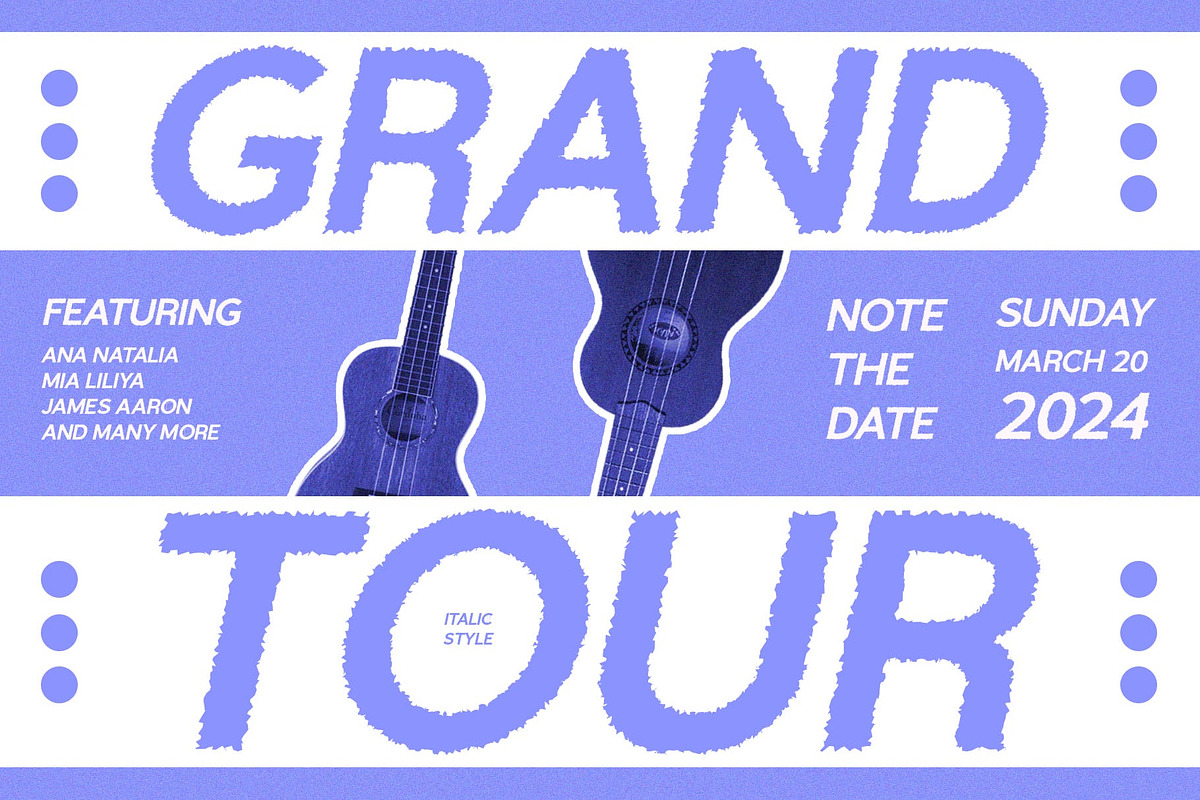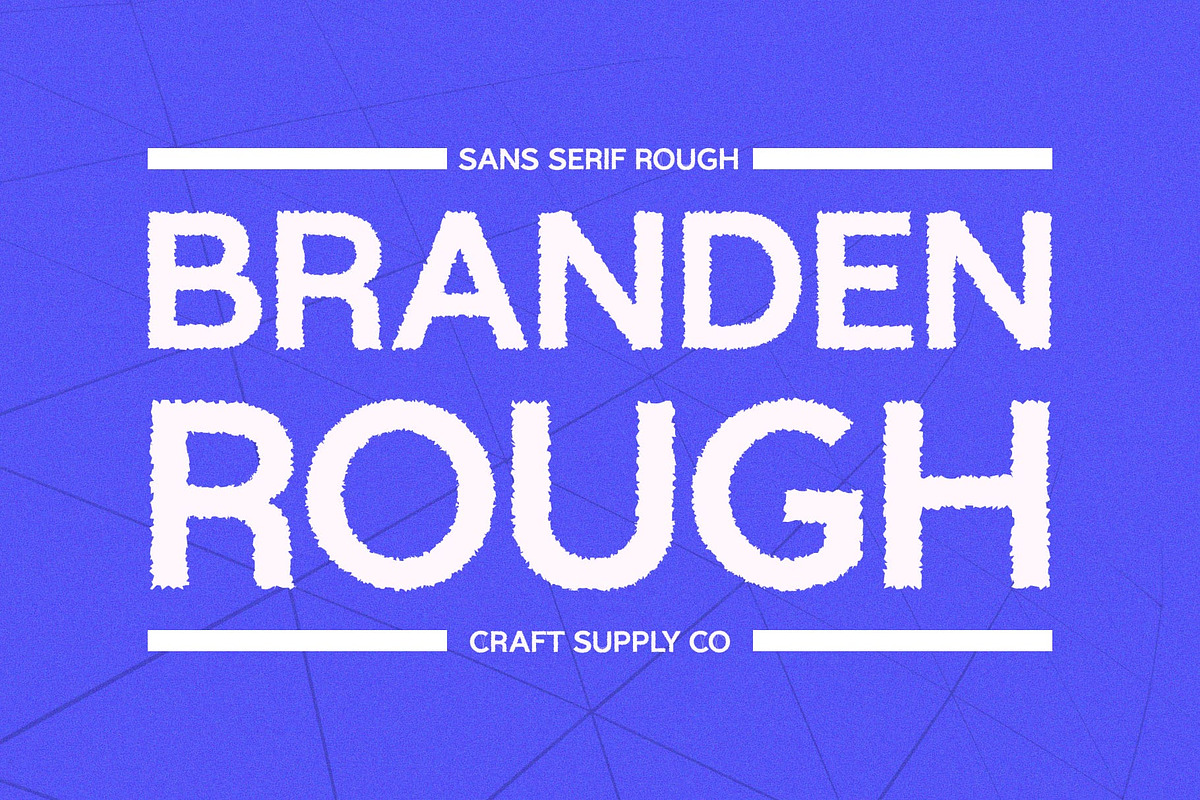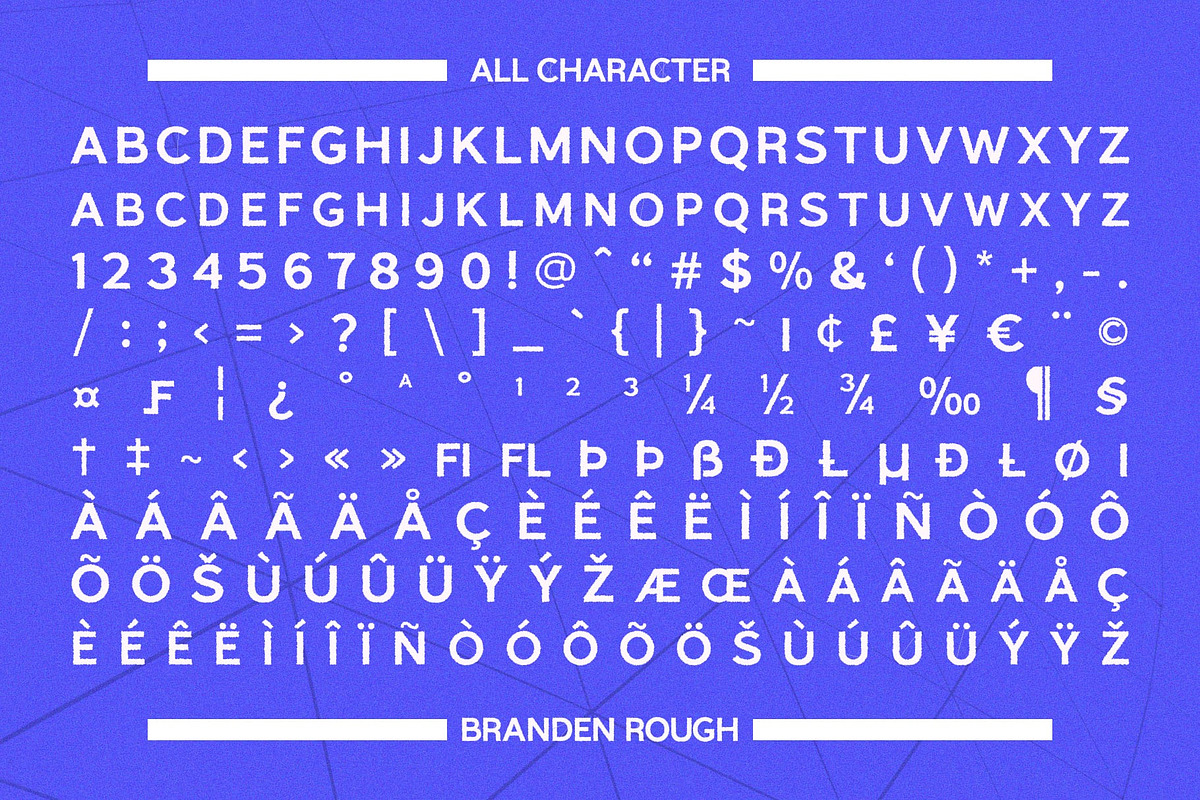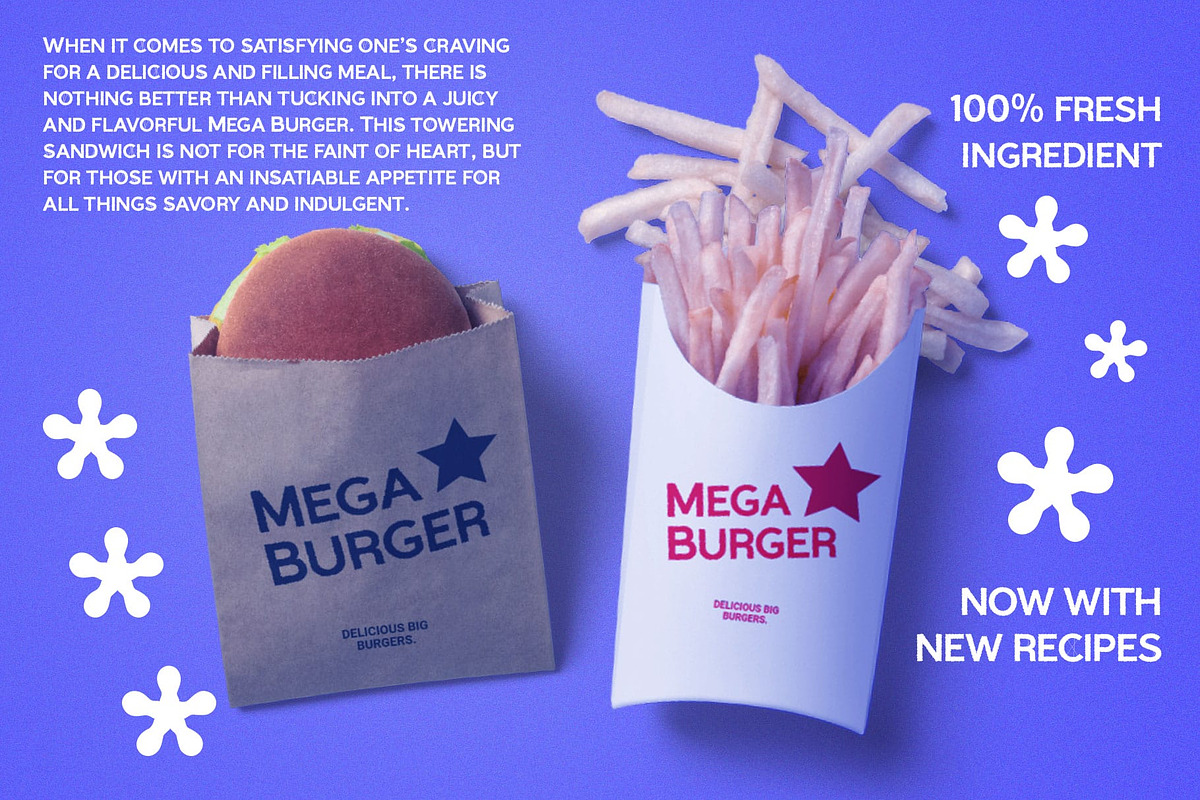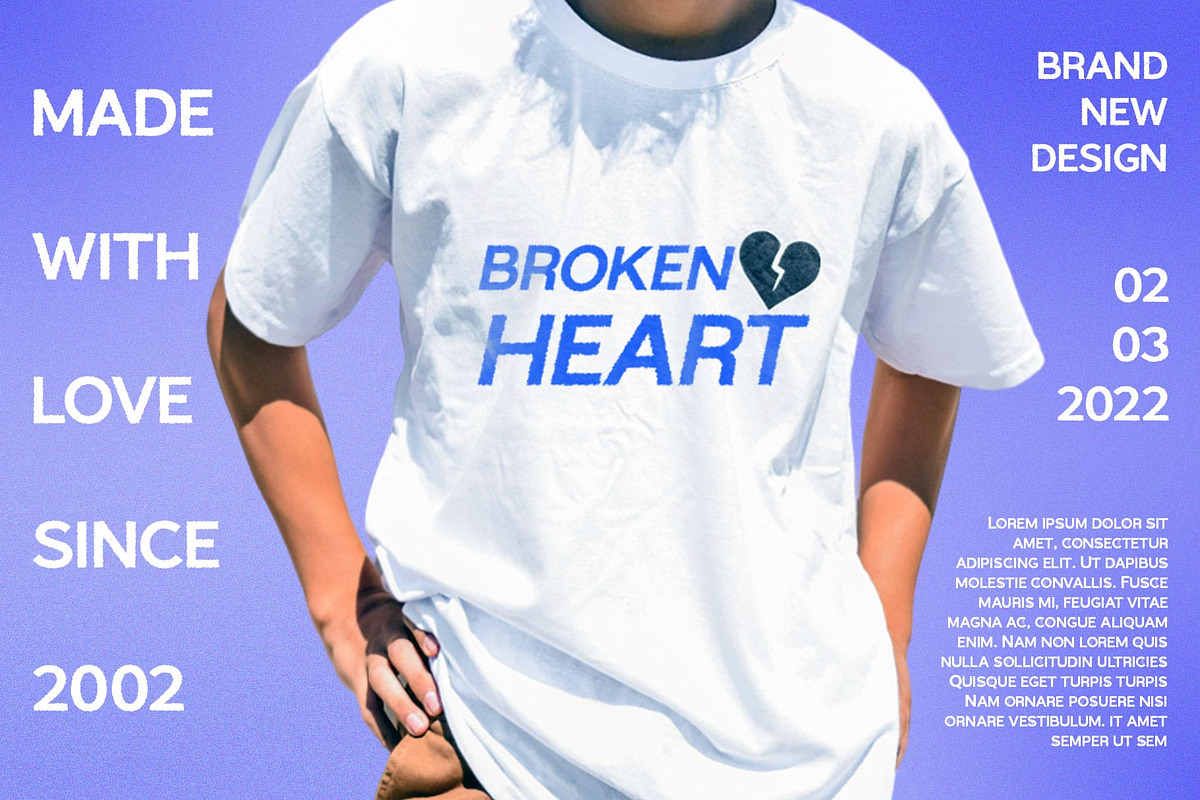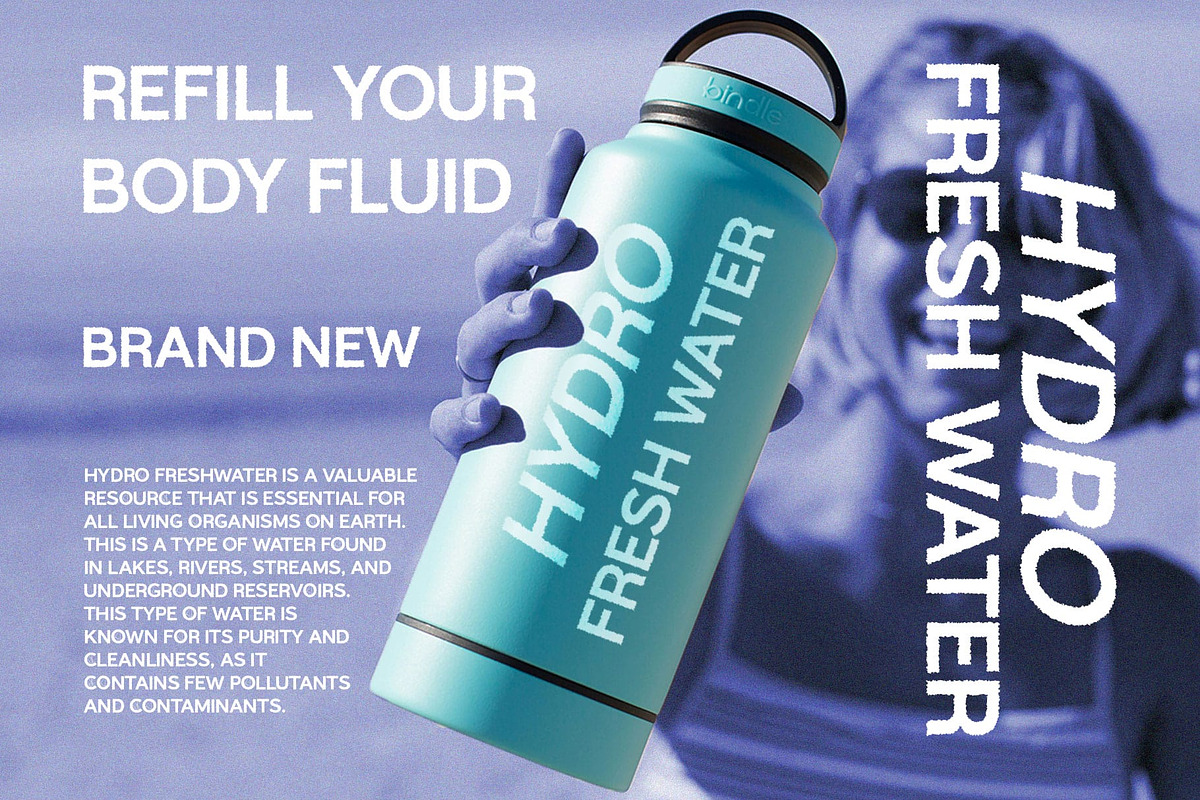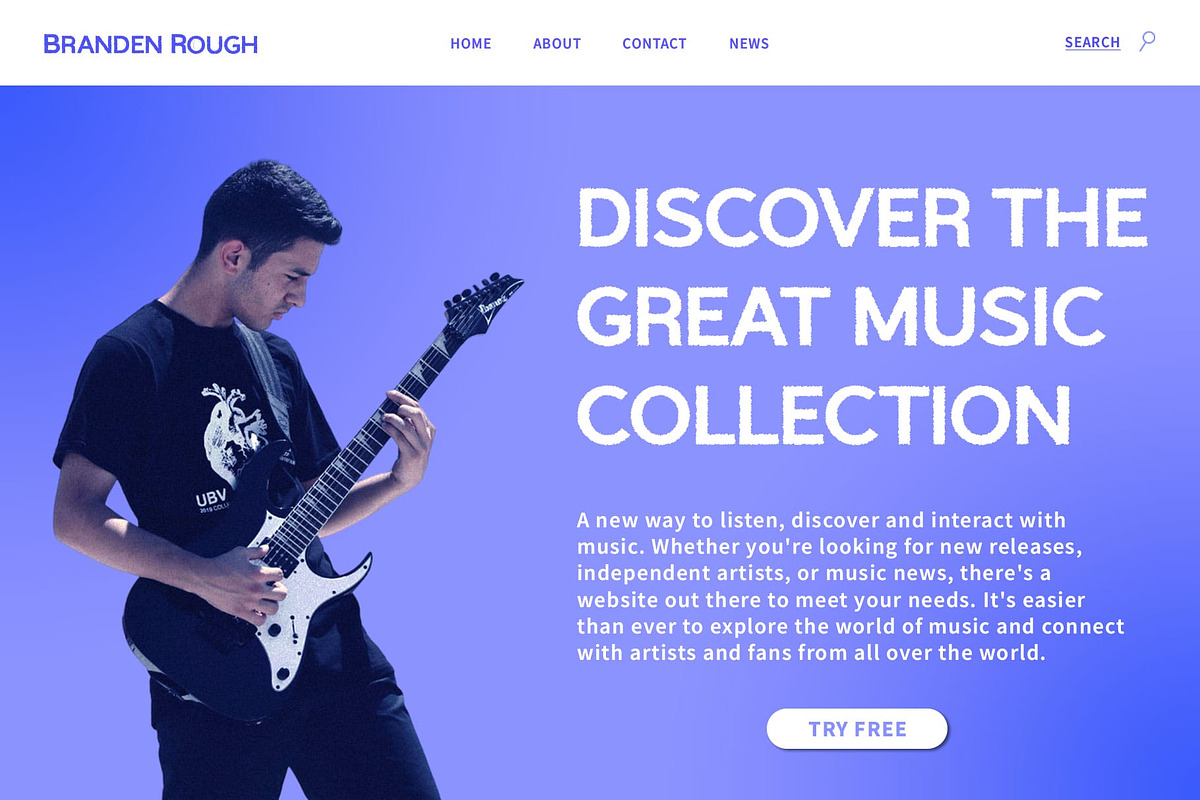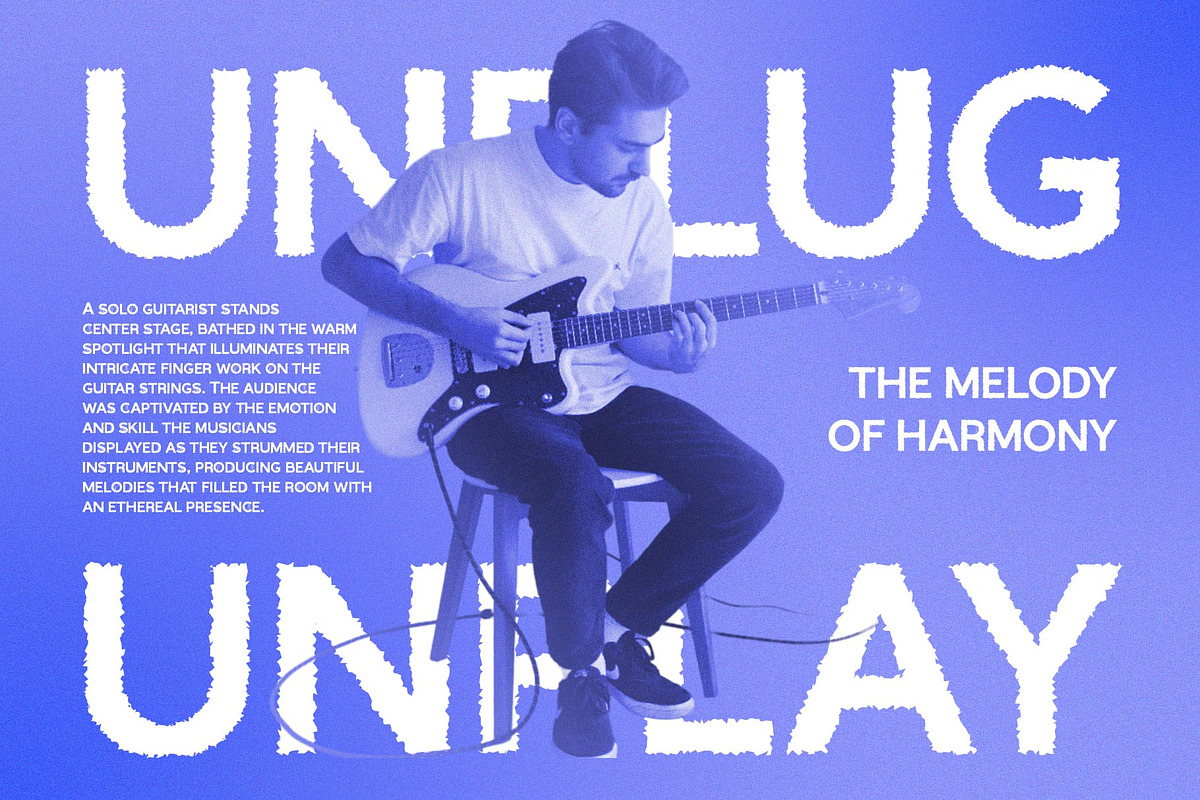
Branden Rough
Introducing Branden Rough: A Vintage Display Typeface
Vintage Appeal with Sans Serif Grotesque Style Branden Rough presents a striking display typeface characterized by its sans serif grotesque style. The low contrast between strokes adds to its vintage charm, making it perfect for retro-inspired designs.
Rough Texture for Authenticity Featuring rough texture effects, This font exudes authenticity and character. Each letter carries a weathered appearance, reminiscent of old signage and vintage prints.
Ideal for Vintage Projects Tailored for vintage-themed projects, This font excels in capturing the essence of bygone eras. From branding to packaging, its distinct style adds a nostalgic touch to any design.
Versatile Usage Across Mediums Beyond its vintage aesthetic, This font offers versatility in application. Whether used in print or digital formats, it maintains legibility and impact, ensuring effective communication across diverse mediums.
Embrace Vintage Elegance This font emerges as a versatile display typeface that seamlessly blends vintage appeal with contemporary design needs. Its sans serif grotesque style, combined with rough texture effects, makes it an ideal choice for designers seeking to infuse their projects with nostalgic charm and authenticity.